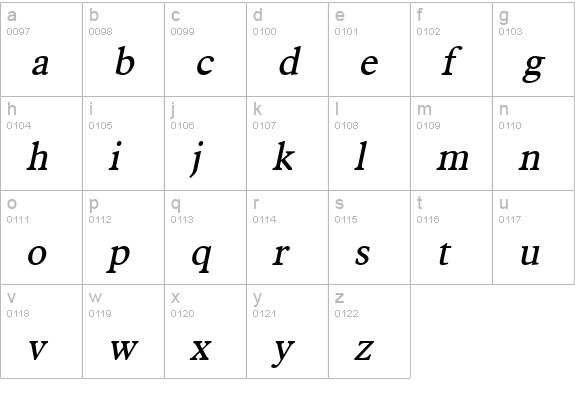
Nadine Italic is a distinctive, italic variant in the Nadine typeface family \xE2\x80\x94 well suited to design and typography projects.
Nadine Italic font exudes elegance and sophistication with its sleek and modern design. The italicized letterforms convey a sense of grace and style, making it perfect for adding a touch of sophistication to any project. The slim and flowing strokes of Nadine Italic create a sense of movement and fluidity, making it a versatile choice for a wide range of design applications. This stunning font is available for free download at FontsMarket.com, allowing you to effortlessly incorporate it into your projects without any cost. Whether you're designing a logo, creating a poster, or crafting a wedding invitation, Nadine Italic is sure to elevate your work with its timeless charm and contemporary flair. Download this exquisite font today and see the impact it can make on your designs.